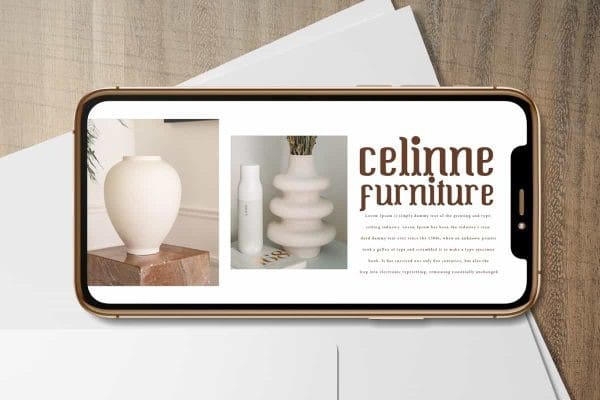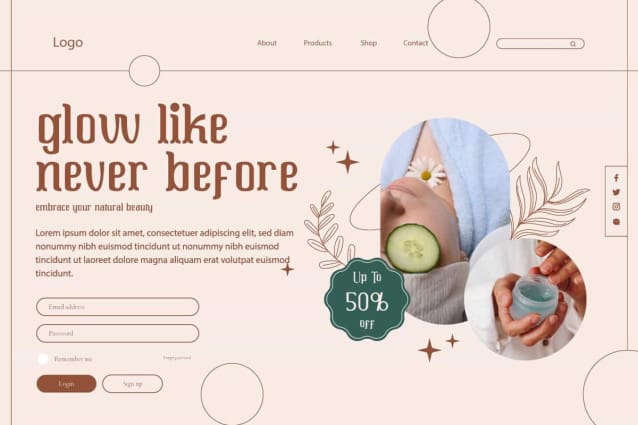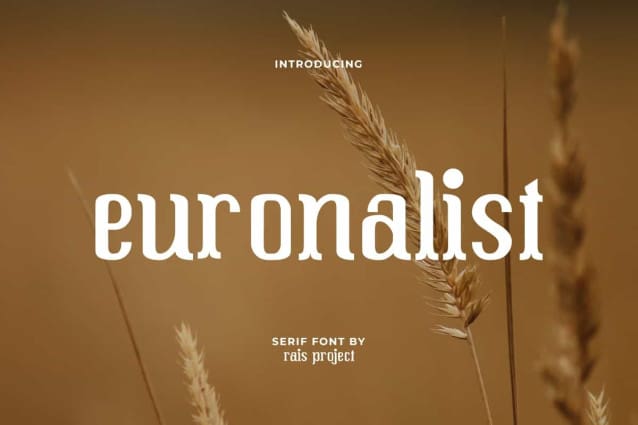
Euronalist Vintage Font
Euronalist Vintage Font is a unique font inspired from Vintage American Sheriff era. This font has a unique shape and is minimalist enough to make your design attract the attention of many eyes. It will be good for any designs, such as brand image, custom design, flyer, invitation, label, magazine cover, poster, marketing material, menu, product packaging, quotes, signage, stationery, website page, and more!
Euronalist Vintage Font including a complete set of basic Uppercase and Lowercase characters, Numerals, and large range of Punctuation. This stylish font will be suitable for various industries, such as accessories, advertising, beauty product, café, crafting, event or wedding organizer, fashion, furniture, marketing, movie, printing, publishing, real estate, restaurant, spa salon, etc.